Fonts with tails, often called “swash fonts,” bring a classic and sophisticated flair to any project. In this article, we’ve rounded up the 16 best Canva fonts with beautiful tails that promise to give your typography a timeless look. Each font in our list has been carefully selected for its unique style and ability to convey a sense of sophistication and charm. From smooth and flowing to bold and dramatic, these Canva fonts are perfect for anyone looking to elevate their design work. These fonts brings unique qualities to the table, making them suitable for a variety of applications where timeless typography is desired.
1. Adlery Swash
Why it is best font with Tail: Â Adlery Swash is bold and energetic, featuring distinctive long tails that add a dynamic flair. Its brushed style makes it ideal for casual yet chic designs, perfect for modern brands looking to stand out.
2. Alex Brush
Why it is best font with Tail: Alex Brush is characterized by its fluid and flowing script that mimics traditional cursive handwriting. The elegant tails enhance its romantic vibe, making it a great choice for invitations and personal blogs.
3. Allura
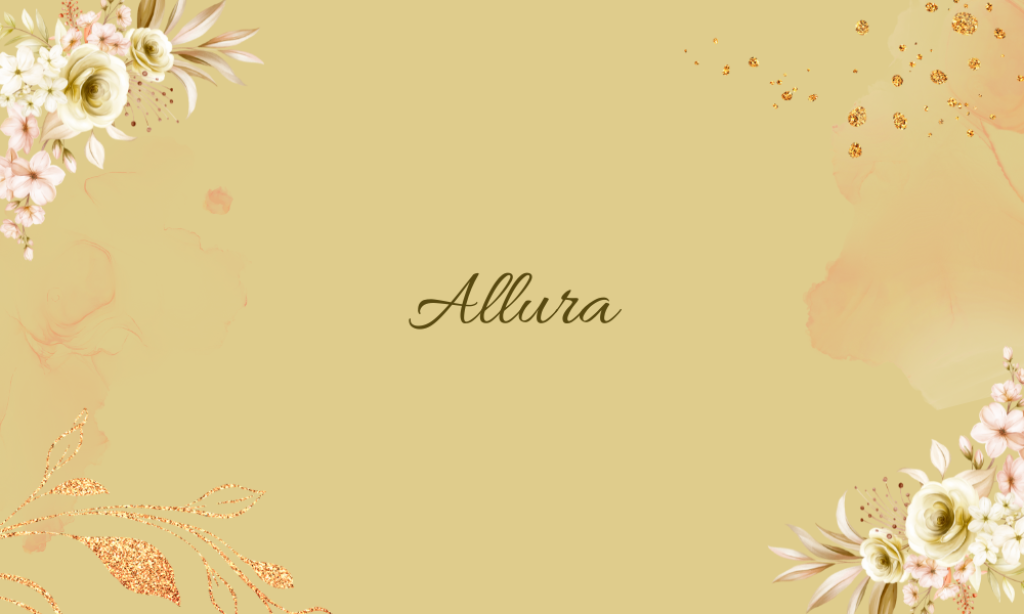
Why it is best font with Tail: offers a clean and highly legible script with sophisticated tails that lend a formal touch. This font is versatile enough for both digital and print media, suitable for everything from corporate branding to event invitations.
4. Berkshire Swash
Why it is best font with Tail: Berkshire Swash intrigues with its quirky and bold swashes, providing a playful yet elegant look. Its unique character makes it perfect for projects that require a standout font with a hint of vintage charm.
5. Brittany
Why it is best font with Tail: Brittany is sleek and contemporary, with smooth curves and minimalistic tails. This font is particularly effective in fashion and lifestyle media, where a touch of modern elegance is essential.
6. Burgues Script
Why it is best font with Tail: Burgues Script is inspired by 19th-century American calligraphy. Its intricate tails and flourishes exude luxury and sophistication, making it a top choice for high-end branding and formal stationery.
7. Callem
Why it is best font with Tail: Callem is a modern script font that balances simplicity with stylish tail elements. It’s ideal for designers looking for a minimalist yet elegant script for logos, headings, and titles.
8. Daydream
Why it is best font with Tail: Daydream features whimsical tails and a bouncy baseline, creating a friendly and inviting aesthetic. It’s perfect for children’s books, creative blogs, or any project that needs a touch of fun.
9. Femen
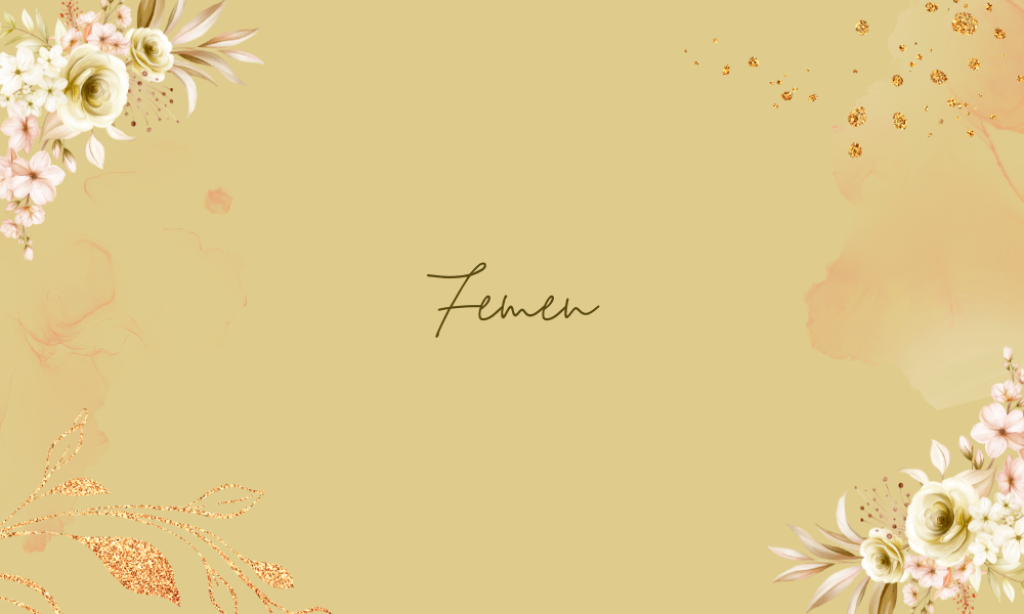
Why it is best font with Tail: Femen is known for its graceful and fluid character, with beautifully crafted tails that enhance its delicate structure. It’s particularly well-suited for wedding stationery and upscale branding.
10. Howell
Why it is best font with Tail: Howell offers a robust and solid script with subtly styled tails, providing a modern twist on traditional calligraphy fonts. It’s effective for professional and academic applications where readability is key.
11. Jimmy Script
Why it is best font with Tail: Jimmy Script has a hand-drawn feel with robust characters and pronounced swashes. This font captures a casual yet refined aesthetic, ideal for boutique marketing and creative presentations.
12. Just Write
Why it is best font with Tail: Just Write combines simplicity with personality, featuring neat tails that add a special touch without overwhelming the text. It’s excellent for personal blogs and instructional content.
13. Lavonia Classy
Why it is best font with Tail: Lavonia Classy is a vintage-inspired font that merges old-world charm with modern design. The elegant tails contribute to its sophisticated look, making it suitable for luxury brands and historical content.
14. Majesty
Why it is best font with Tail: Majesty is regal and imposing, with prominent tails that command attention. Its powerful presence is ideal for titles and headers in formal documents and ceremonial contexts.
15. Malibu Ring
Why it is best font with Tail: Malibu Ring offers a casual script style with playful tails, perfect for informal yet stylish communications. Its approachable design is excellent for social media graphics and youth-oriented advertising.
16. Playlist Script
Why it is best font with Tail: Playlist Script is versatile and contemporary, featuring loose, expressive tails that provide a laid-back feel. It’s highly adaptable for music-related projects, casual branding, or any creative endeavor seeking a modern script.